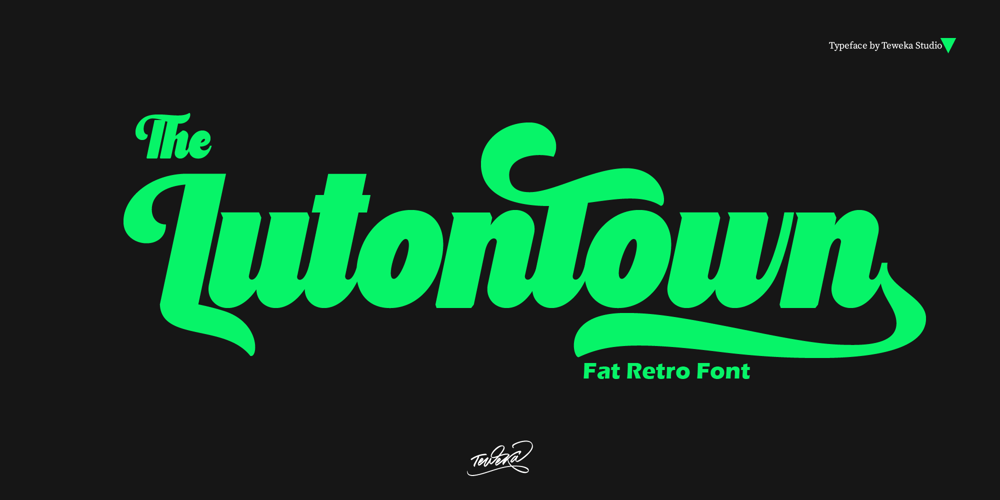
The Lutontown
The Lutontown font
The Lutontown Font Family was designed by Tuanku Muhammad Iqbal and published by Teweka. The Lutontown contains 1 styles and family package options. The Lutontown font is a font with a unique style inspired by triangles, there are several triangle shapes in the letters. This font has a opentype simple but elegant. This font is also equipped with Multilingual. This font is perfect for branding, logos, etc